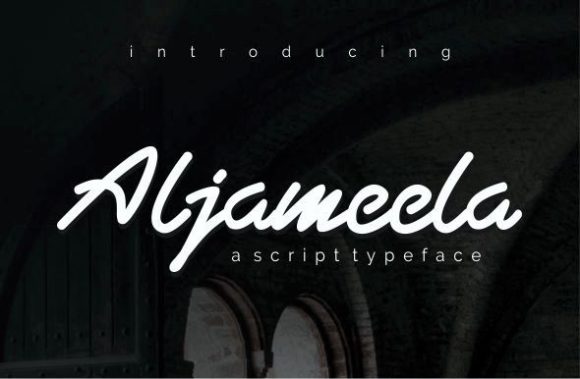
The Elegance of Handwritten Fonts: A Deep Dive into Aljameela
I’ll never forget the time I was working on a branding project for a small bakery, and I just couldn’t find the right font to capture their warm and inviting personality. The client wanted something that felt handmade, yet sophisticated. After hours of scrolling through font libraries, I stumbled upon Aljameela – a beautiful handwritten font that instantly resonated with me. In this article, I’ll share my experience with Aljameela, its features, and how to make the most of it in your designs.
An Honest Review of Aljameela
Aljameela has quickly become one of my go-to fonts for a variety of projects. Here’s what I love about it:
- ✨ Elegant and refined: Aljameela has a sophisticated, cursive feel that’s perfect for high-end branding, logos, and social media graphics.
- ✅ Versatile: This font works well in both digital and print formats, making it a great choice for crafty DIY projects, business cards, and more.
- 💫 Unique character: Aljameela has a distinct personality that sets it apart from other handwritten fonts.
While Aljameela is an excellent font, it’s not without its quirks:
- 🤔 Limited use in body text: Due to its elegant, cursive nature, Aljameela might not be the best choice for long blocks of body text. It’s better suited for headings, titles, and short paragraphs.
- ⚠️ Some letter combinations: As with any font, some letter combinations might not look perfect. However, the overall aesthetic of Aljameela more than makes up for it.
- Experiment with OpenType features like ligatures and stylistic alternates to add visual interest to your text.
The Story Behind Aljameela
Aljameela was designed with the goal of creating a beautiful, handwritten font that captures the essence of elegance and sophistication. The designer aimed to create a font that’s both refined and approachable, making it perfect for a wide range of creative projects.
| Author | Niznaz Graphic Studio |
| What type of projects is Aljameela best suited for? | Aljameela is perfect for logos, branding, social media graphics, and crafty DIY projects that require an elegant, handwritten font. |
| Is Aljameela available in different weights or styles? | Aljameela comes in a single weight, but its elegant design makes it versatile enough to work well in various contexts. |